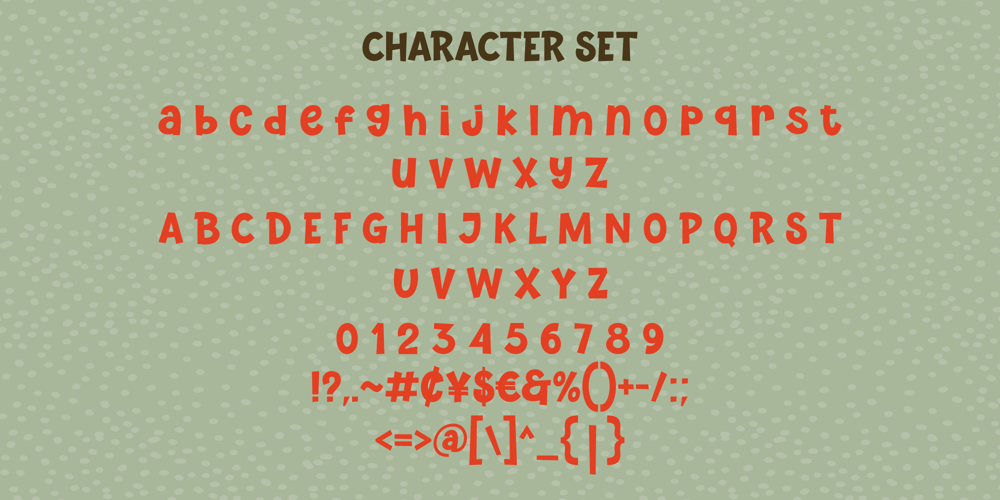
Little Crunch Font Family was designed by Kurnia Elis Setyorini and published by Naatypo. Little Crunch contains 1 styles and family package options. Experience a touch of intimacy and personalization in your designs with Little Crunch! Each letter of this hand-drawn font is meticulously crafted to infuse life into your creative endeavours, making them memorable and heartwarming. Little Crunch seamlessly synergizes with other typefaces, enhancing the distinctiveness of your design work. Boasting of adaptability, Little Crunch effortlessly adapts to various styles, ensuring that your visual narrative is flawlessly communicated, irrespective of your project’s size or intricacy.